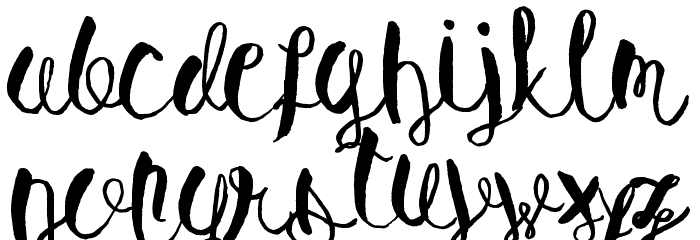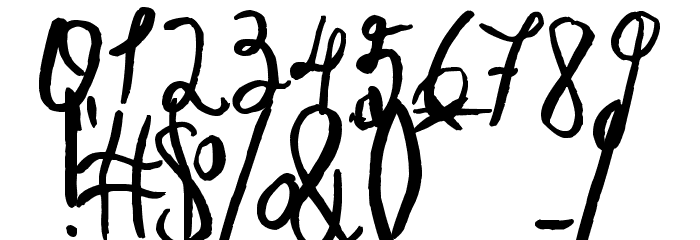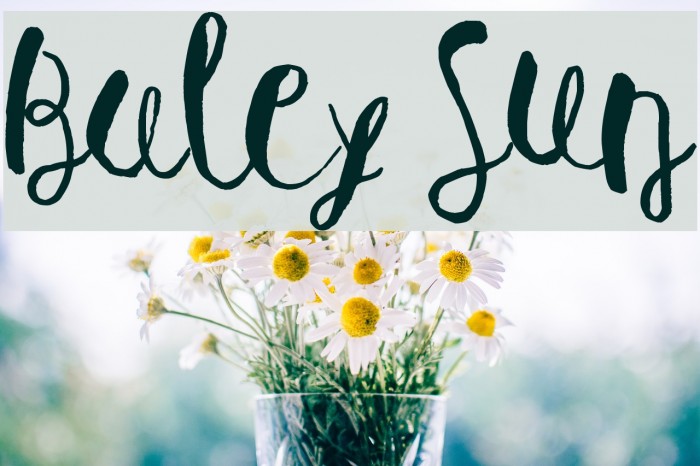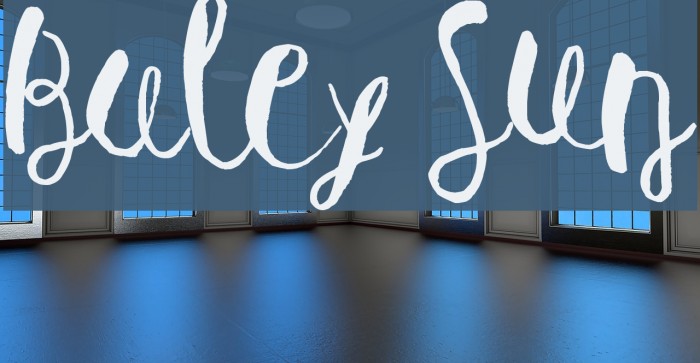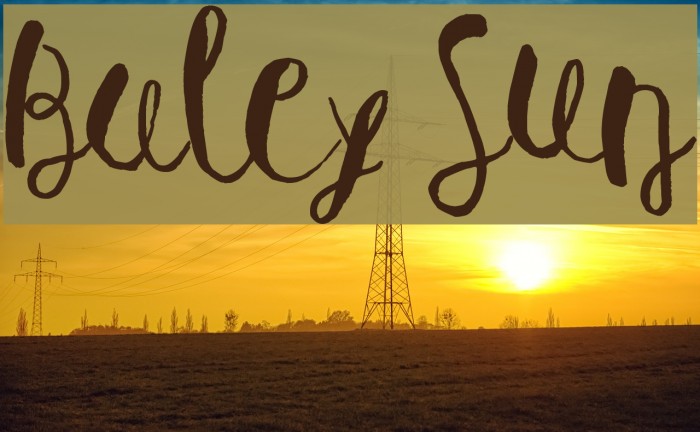
Baley Sun Font
This font features a whimsical and artistic handwritten style, characterized by its flowing and interconnected letterforms. The uppercase letters exhibit a playful looped design, while the lowercase letters maintain a consistent fluidity, enhancing the font's organic feel. The numbers and special characters are equally expressive, with unique curves and swirls that add to the overall charm. This font's bold strokes and varying line thicknesses create a dynamic contrast, making it visually striking and suitable for creative projects.
A whimsical, artistic handwritten font with flowing, interconnected letterforms.
- Proposed Projects: Ideal for creative projects such as greeting cards, invitations, artistic posters, and branding materials that require a personal touch.
- Use Case: Logos, Headlines, Artistic projects